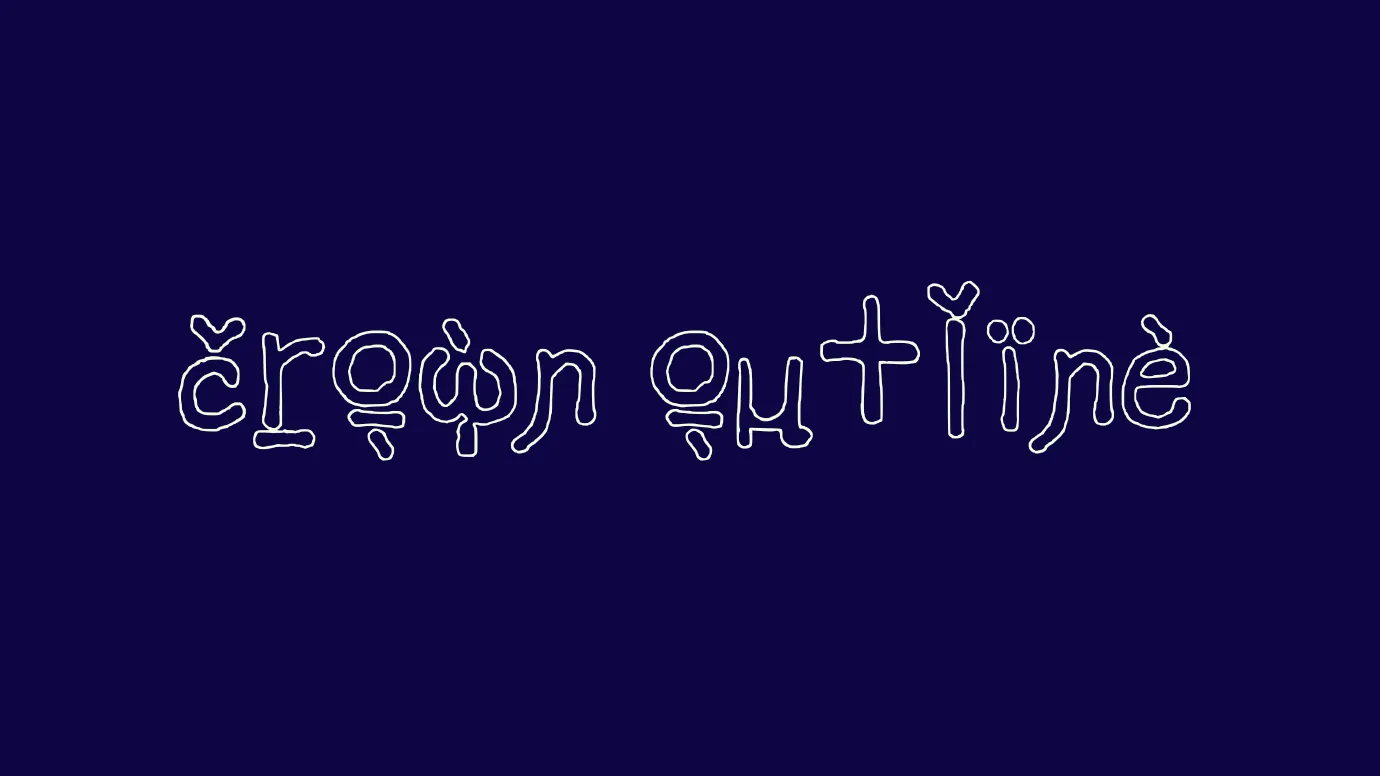
Crown Outline Font Family is a very unique and ancient-time typeface. The look of this font is very attractive as it was used at the time of writing king or queen projects like writing notes and messages.
Crown Outline Font